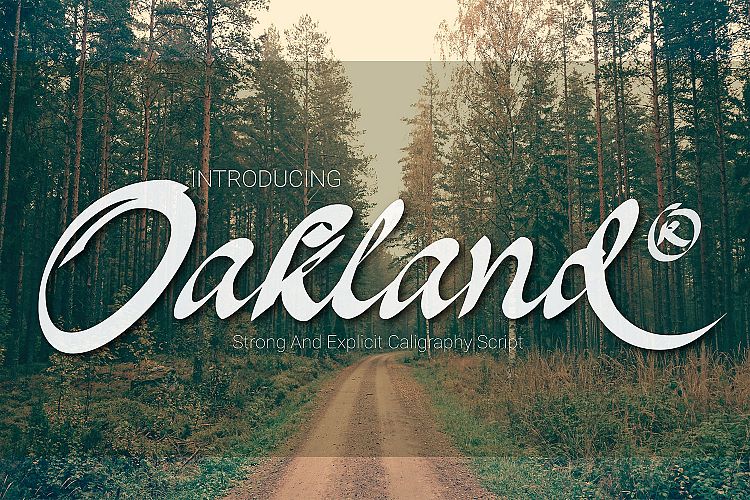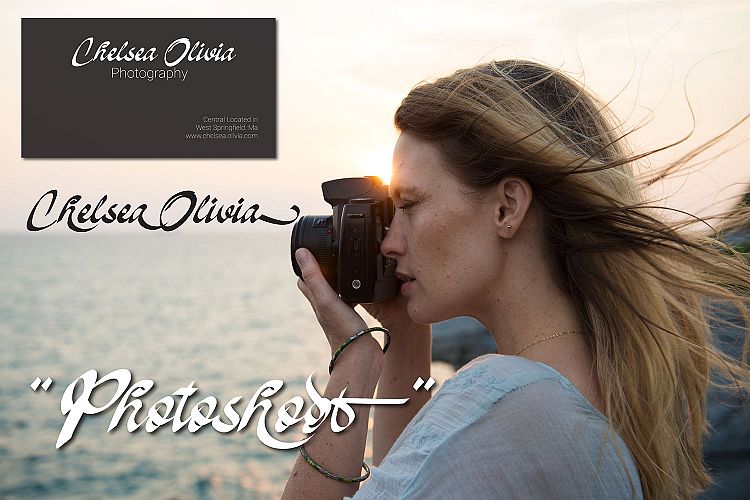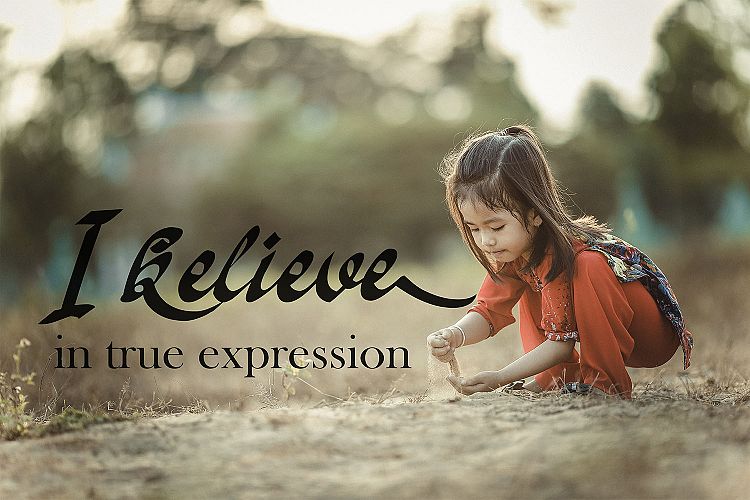
Oakland Script Font
Oakland is a stunning painterly calligraphy font, crisp and designed in a modern way that is sensible for displays and headlines. This font has a highly brandable appeal and can work in logotype and merchandise.